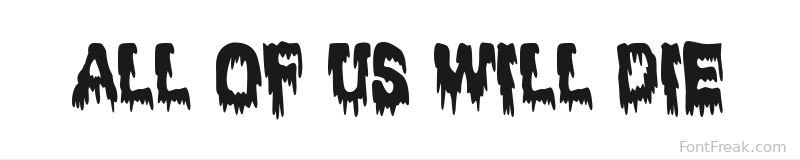
All of us will die
The "All of us will die" font by woodcutter Manero is a distinctive display typeface that captures attention with its unique, edgy aesthetic. This freeware font embodies a playful yet eerie vibe, making it an ideal choice for projects that aim to evoke strong emotions or create a memorable impact. The font features irregular stroke weights and a dramatic contrast between thick and thin lines, giving it a bold presence. Its spacing is tight, which enhances its visual intensity, while decorative elements, such as dripping effects, add a captivating and whimsical touch.
This font is particularly well-suited for various creative applications. Graphic designers can utilize it for eye-catching movie posters, creating a sense of intrigue and suspense. It also works wonderfully for Halloween-themed materials, whether it's party invitations or promotional graphics for haunted houses. Small business owners might find it effective for unique branding elements or merchandise designs, especially in sectors like food and beverage where an unconventional approach can make a brand stand out. Content creators looking to spice up their social media graphics or YouTube thumbnails will appreciate its ability to draw in viewers and generate interest.
The target audience for the "All of us will die" font includes graphic designers, small business owners, and content creators who are seeking a distinctive typeface that can elevate their projects. Its bold character and unique style make it a compelling choice for anyone looking to make a statement. In a world where typography plays a crucial role in communication, this font stands out for its ability to blend humor and horror seamlessly. Don’t miss the opportunity to enhance your designs with this eye-catching typeface; the All of us will die font free download is available for those ready to explore its creative potential.